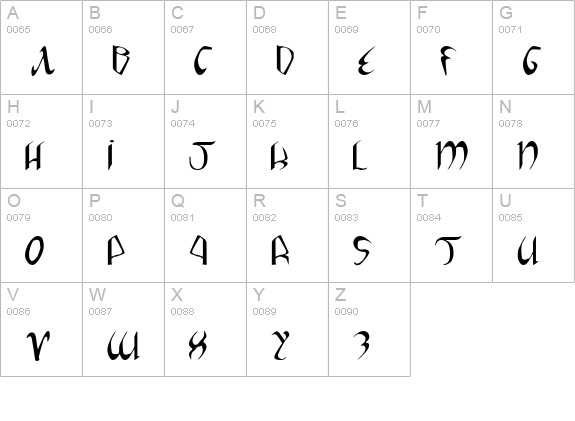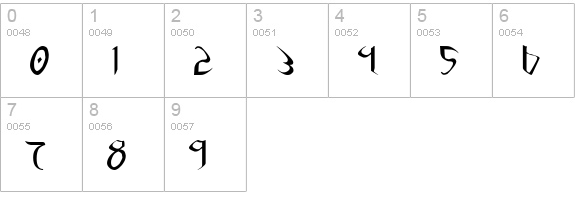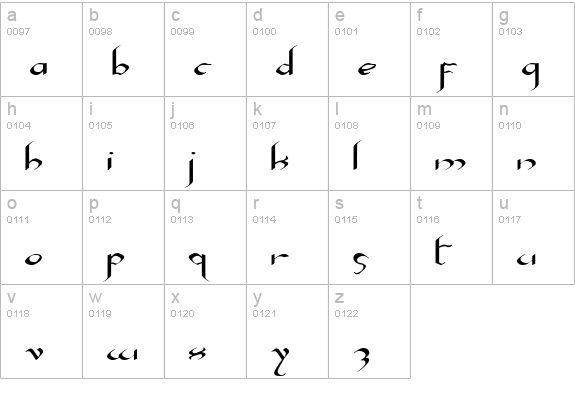
Xaphan Expanded is a distinctive, extended-width variant in the Xaphan typeface family \xE2\x80\x94 well suited to design and typography projects.
Xaphan Expanded is a modern and stylish font that exudes elegance and sophistication. With its sleek lines and contemporary design, this typeface is perfect for a wide range of design projects, from branding to editorial layouts. The expanded version of Xaphan adds a unique twist to the original font, making it stand out even more. What makes Xaphan Expanded even more appealing is that it is completely free to download. Yes, you read that right - you can get your hands on this stunning font at no cost! Simply visit FontsMarket.com to access this beautiful typeface and enhance your design projects with its charm and versatility. Don't miss out on the opportunity to elevate your designs with Xaphan Expanded - download it for free today!